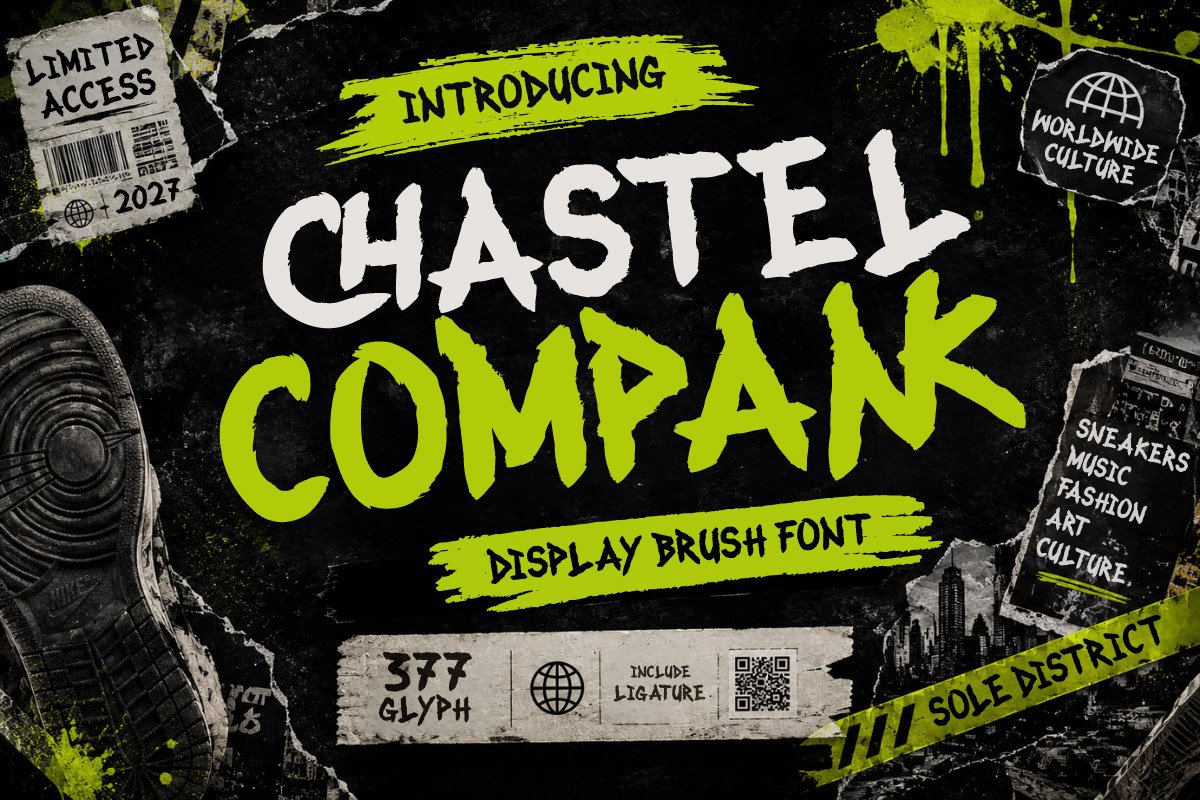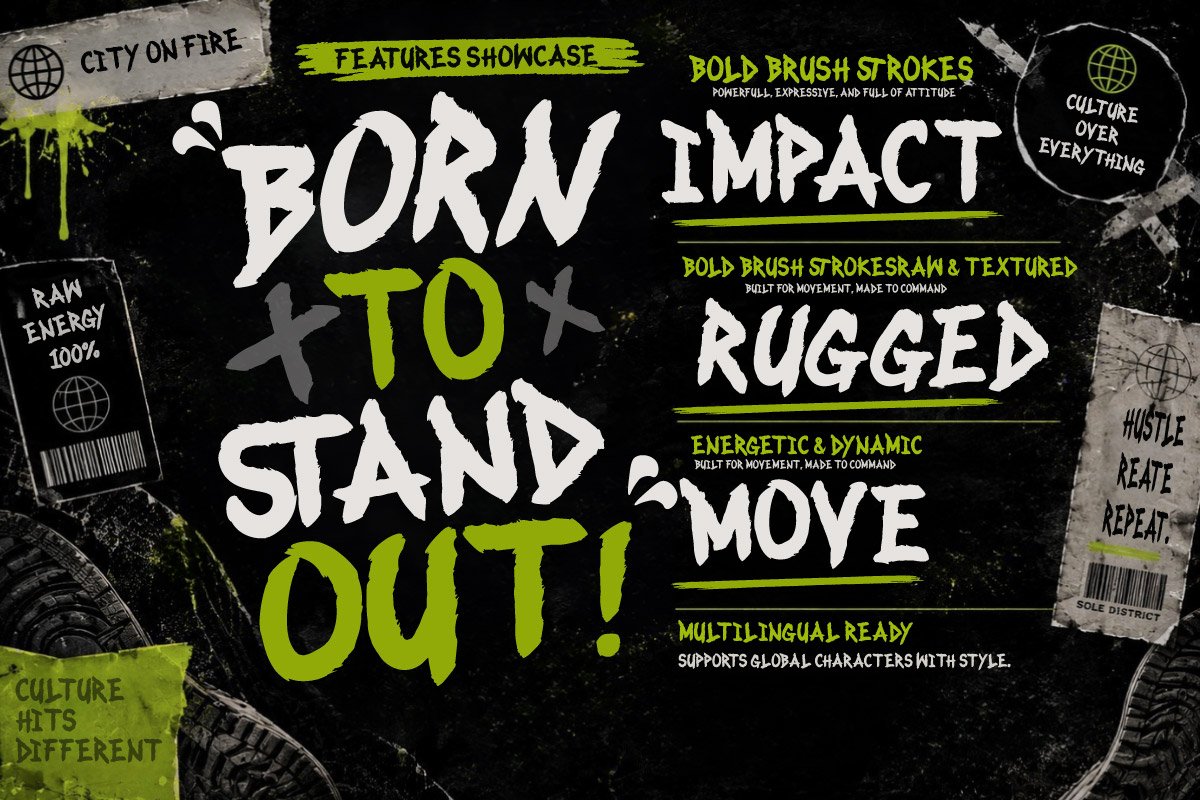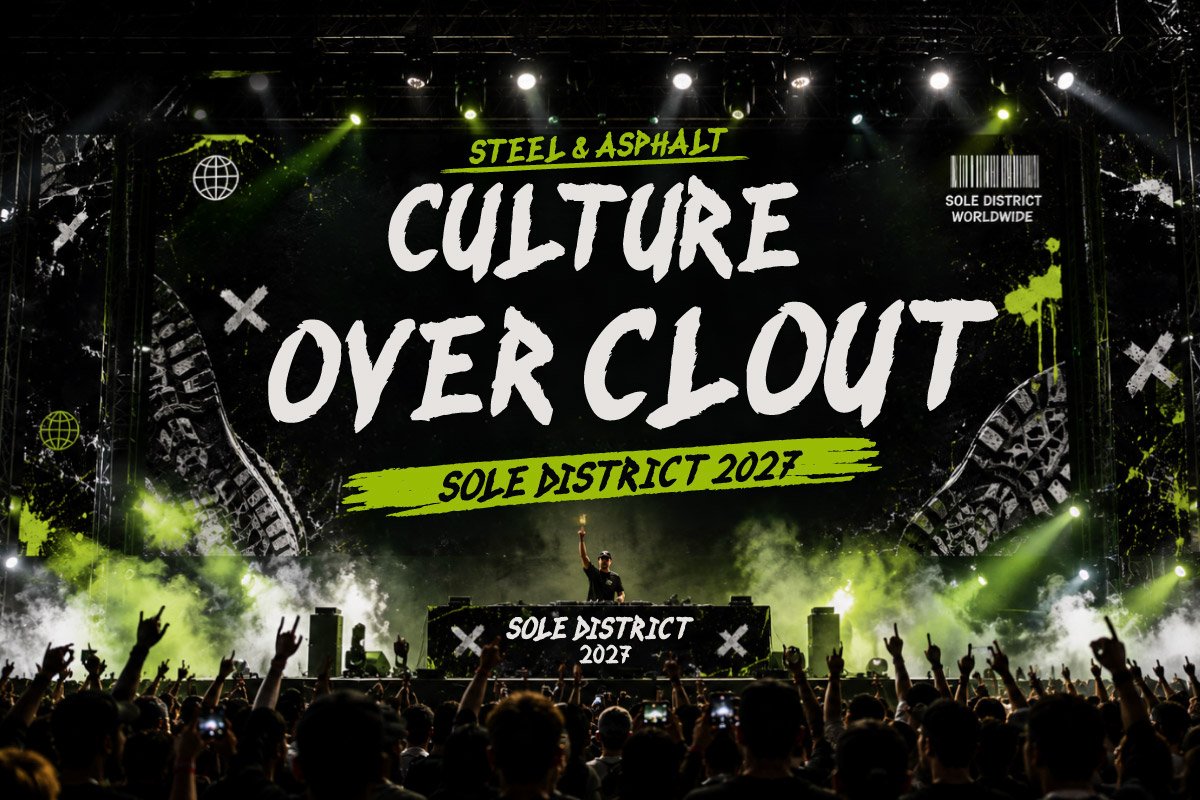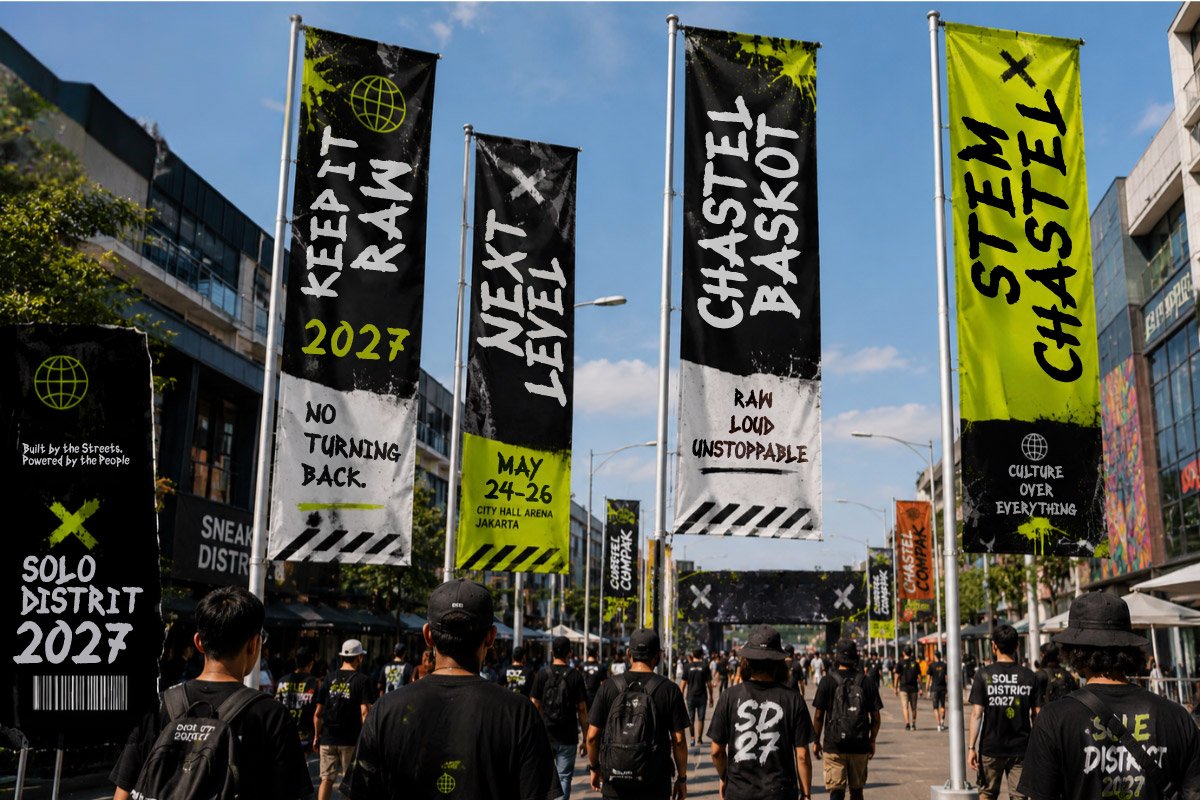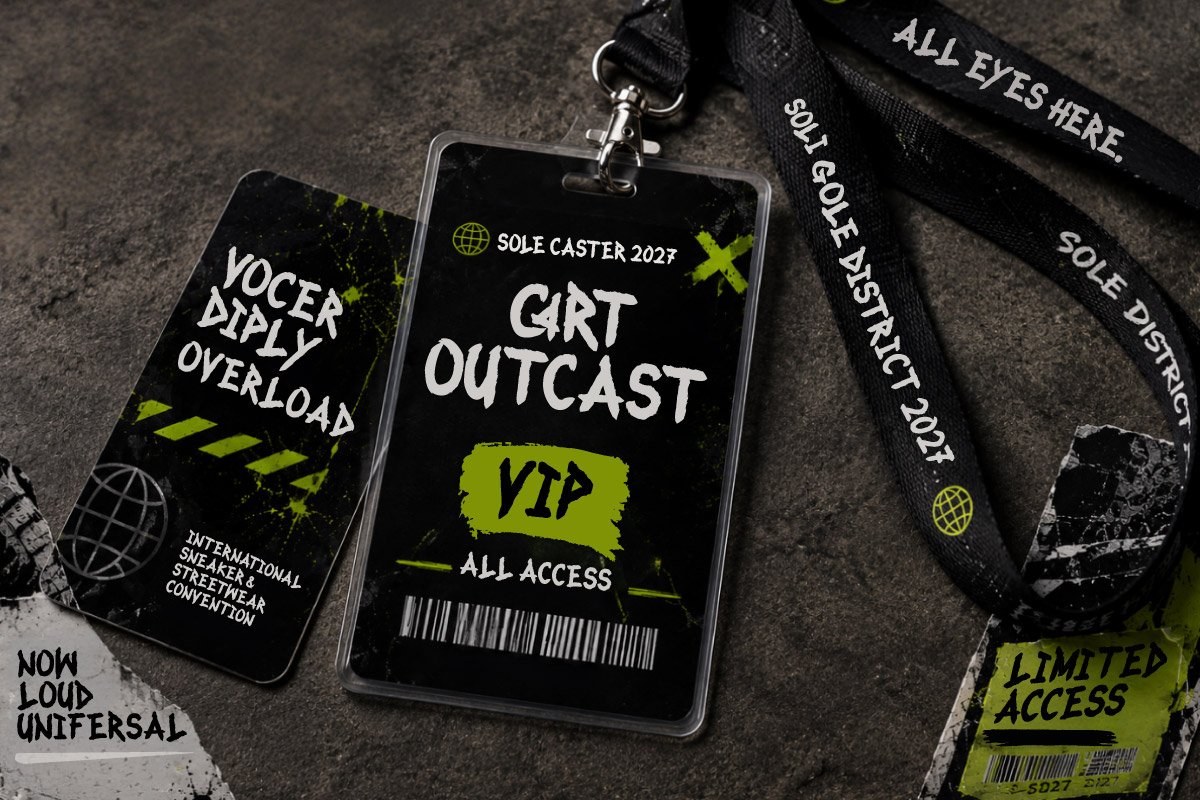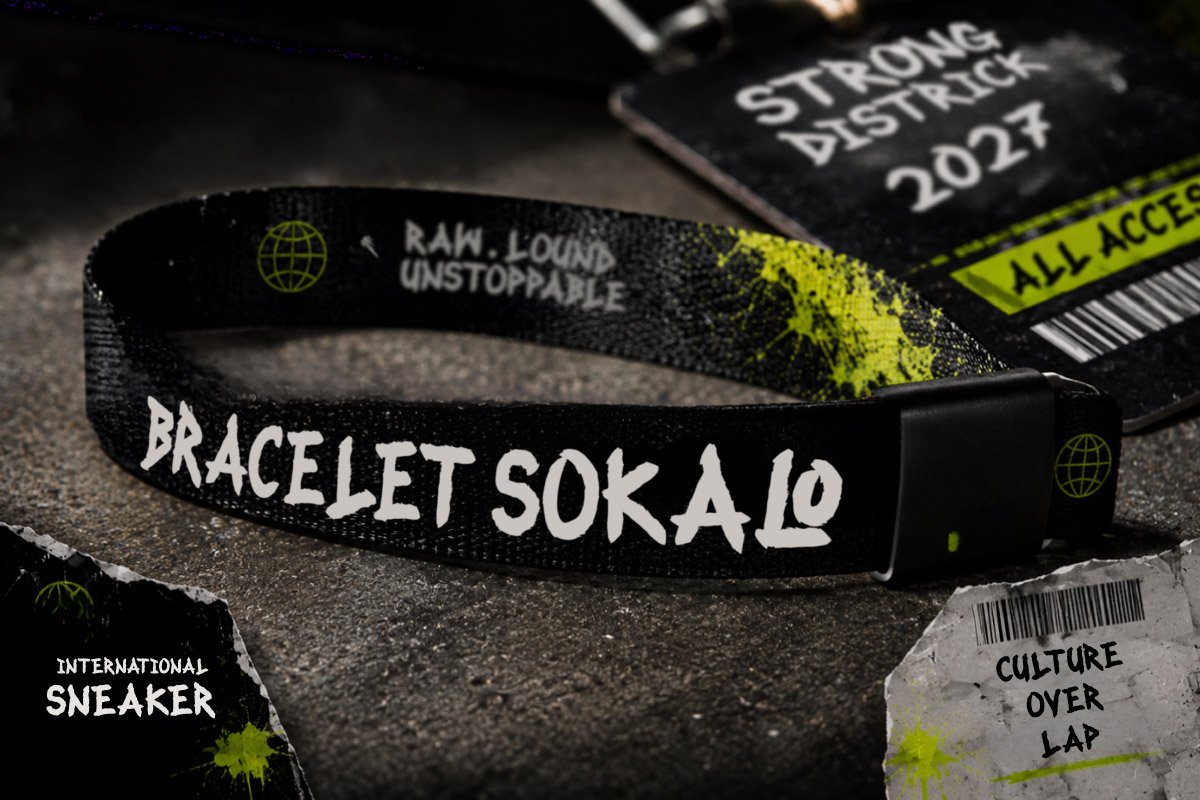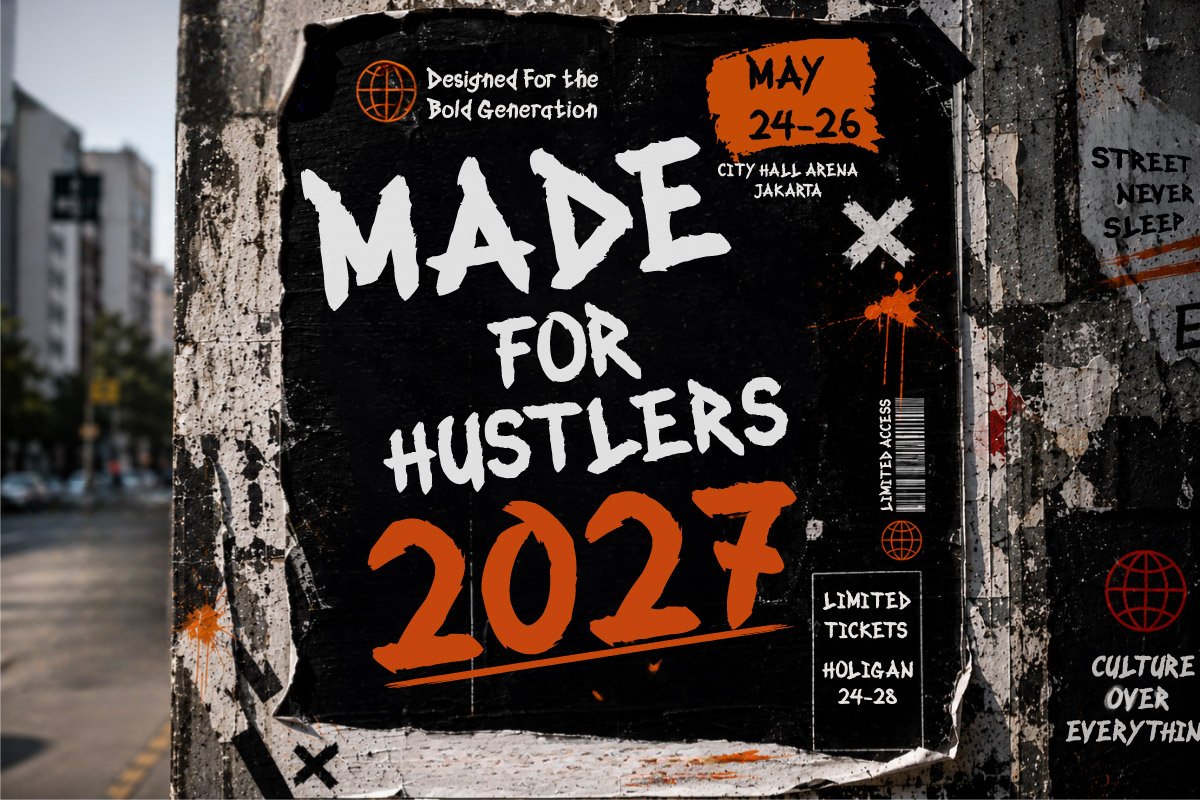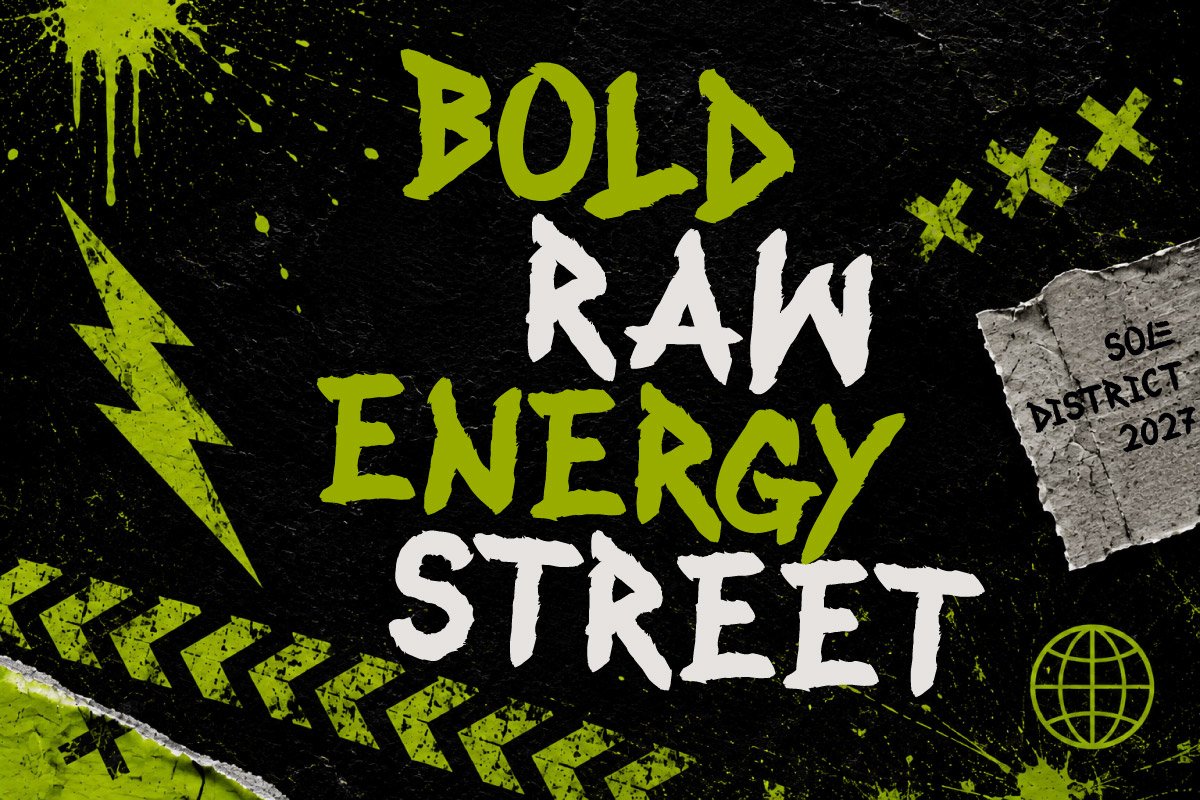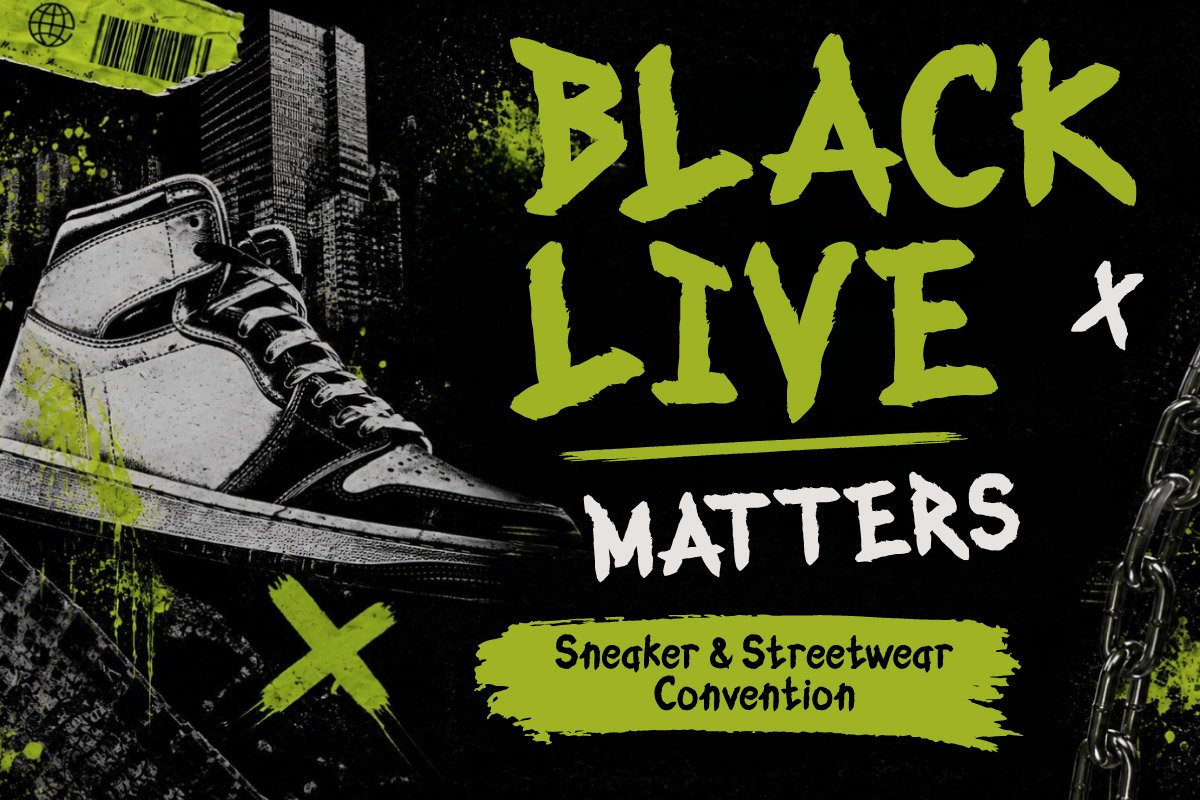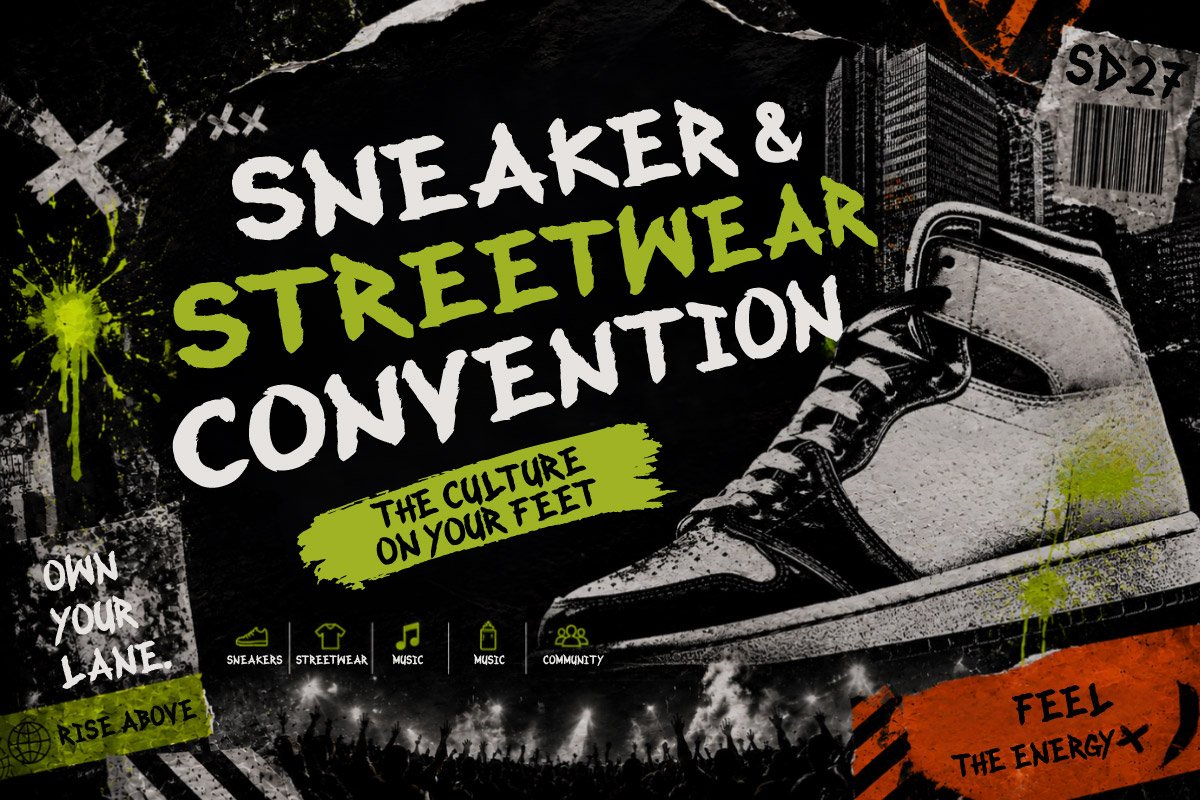
- Chastel Compank – Brush Display Font
Chastel Compank – Brush Display Font is a rough, expressive, and energetic brush display typeface created to bring a strong street culture, urban, bold, and rebellious personality to creative projects. Its handmade letterforms and dynamic brush strokes create an authentic, spontaneous look that works especially well for powerful headlines and attention-grabbing visuals.
This font is perfect for sneaker branding, streetwear campaigns, fashion promotions, music events, festival posters, product launches, shopping campaigns, sportswear, youth branding, advertising, and social media content. Its edgy character is designed for projects that need strong visual impact while maintaining a modern, energetic, and urban lifestyle feel.
Chastel Compank is a versatile choice for graphic designers, fashion brands, sneaker shops, creative agencies, event organizers, marketing teams, and content creators looking to create standout posters, apparel graphics, packaging, merchandise, campaign visuals, and promotional materials with a bold and memorable identity.